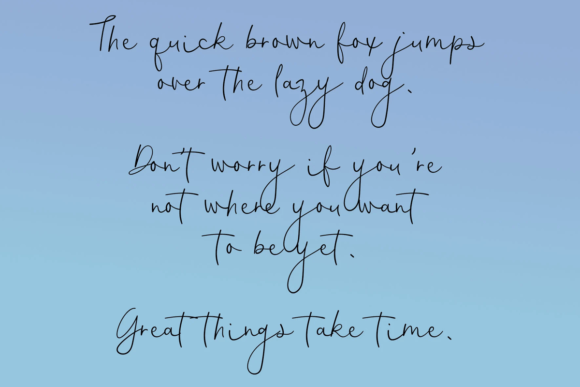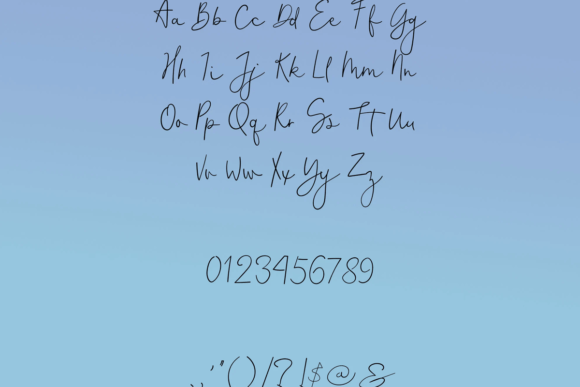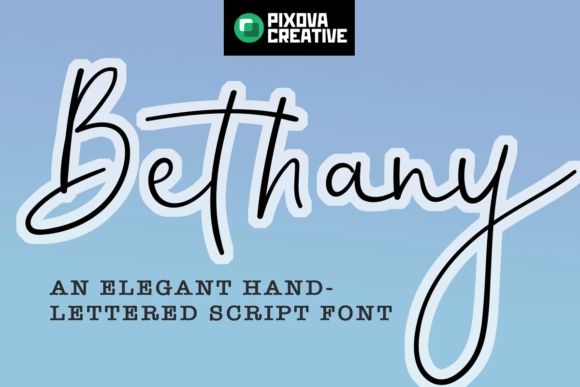
Adding a Personal Touch with the Bethany Font
Have you ever been browsing through a beautiful wedding invitation or a handmade greeting card and wondered what makes it so special? The answer lies in the elegant handwriting that adds a personal touch to the design. For designers and creatives, finding the right font can make all the difference in bringing a project to life.
Bethany Font is a stunning hand-lettered font that embodies the perfect blend of friendly and sophisticated style. Its smooth and flowing letters make it ideal for adding a personal touch to invitations, greeting cards, and other creative projects. Whether you’re a seasoned designer or a DIY enthusiast, Bethany Font is a valuable asset that can elevate your designs and make them truly unique.
Bethany Font Key Features
- Unique Characteristics: Bethany Font features a unique blend of modern and vintage elements, with intricate details and ornate flourishes.
- Font Style: The font comes in three styles: Regular, Bold, and Italic, each with its own distinct characteristics.
Bethany Font Review
When I first came across the Bethany font, I was immediately drawn to its elegant and sophisticated look. ✨ The font’s clean lines and minimalist design make it perfect for a variety of applications, from formal documents to website headers.
- ✨ Beautifully crafted, the Bethany font is a true work of art.
- ✨ The font’s high legibility makes it easy to read, even at smaller font sizes.
- ✨ It’s available in multiple weights and styles, giving designers plenty of options to choose from.
However, there are some limitations to the Bethany font that designers should be aware of. ⚠️ The font’s design is quite formal, which may not be suitable for every project. Additionally, some users may find the font to be too plain or boring.
- ⚠️ Limited expressiveness, which may not be suitable for projects that require a bolder or more playful tone.
- ⚠️ Not ideal for use in small text, as it can be difficult to read.
Overall, I think the Bethany font is a solid choice for designers who need a clean and elegant font. While it may not be the best fit for every project, it’s definitely worth considering for formal or professional applications.
Tips: Use Bethany Font for headings and titles to create a clean and elegant look. Experiment with different font sizes and colors to add visual interest.
Tips: Use Bethany Font for typography-heavy designs, such as logos or infographics. Experiment with layer blending modes and effects to add depth and interest.
Tips: Use Bethany Font for presentations and reports to create a professional and polished look. Experiment with different font combinations and formatting options to add visual interest.
Bethany Font is ideal for:
- Brand identities and logos
- Typography-heavy designs and infographics
Alternatives to Bethany Font for Designers
Lato is a modern sans-serif font that offers a clean and elegant look. It’s perfect for use in digital products, branding, and web design. Lato is highly legible and works well in both print and digital formats. Compared to Bethany Font, Lato has a more modern feel and is more suitable for contemporary designs.
Merriweather is a classic serif font that exudes sophistication and elegance. It’s ideal for use in print materials, such as books, magazines, and brochures. Merriweather is highly readable and works well in large blocks of text. Compared to Bethany Font, Merriweather has a more traditional feel and is more suitable for formal designs.
Montserrat is a geometric sans-serif font that offers a sleek and urban look. It’s perfect for use in digital products, branding, and web design. Montserrat is highly legible and works well in both print and digital formats. Compared to Bethany Font, Montserrat has a more edgy feel and is more suitable for modern and trendy designs.
What is the recommended font size and line height for the Bethany Font?
The recommended font size for the Bethany Font is between 10pt and 24pt, with a line height of 120-150% of the font size. This will ensure optimal readability and legibility of the font. You can adjust these settings to suit your specific design needs, but keep in mind that using font sizes and line heights outside of this range may affect the overall appearance of your design.